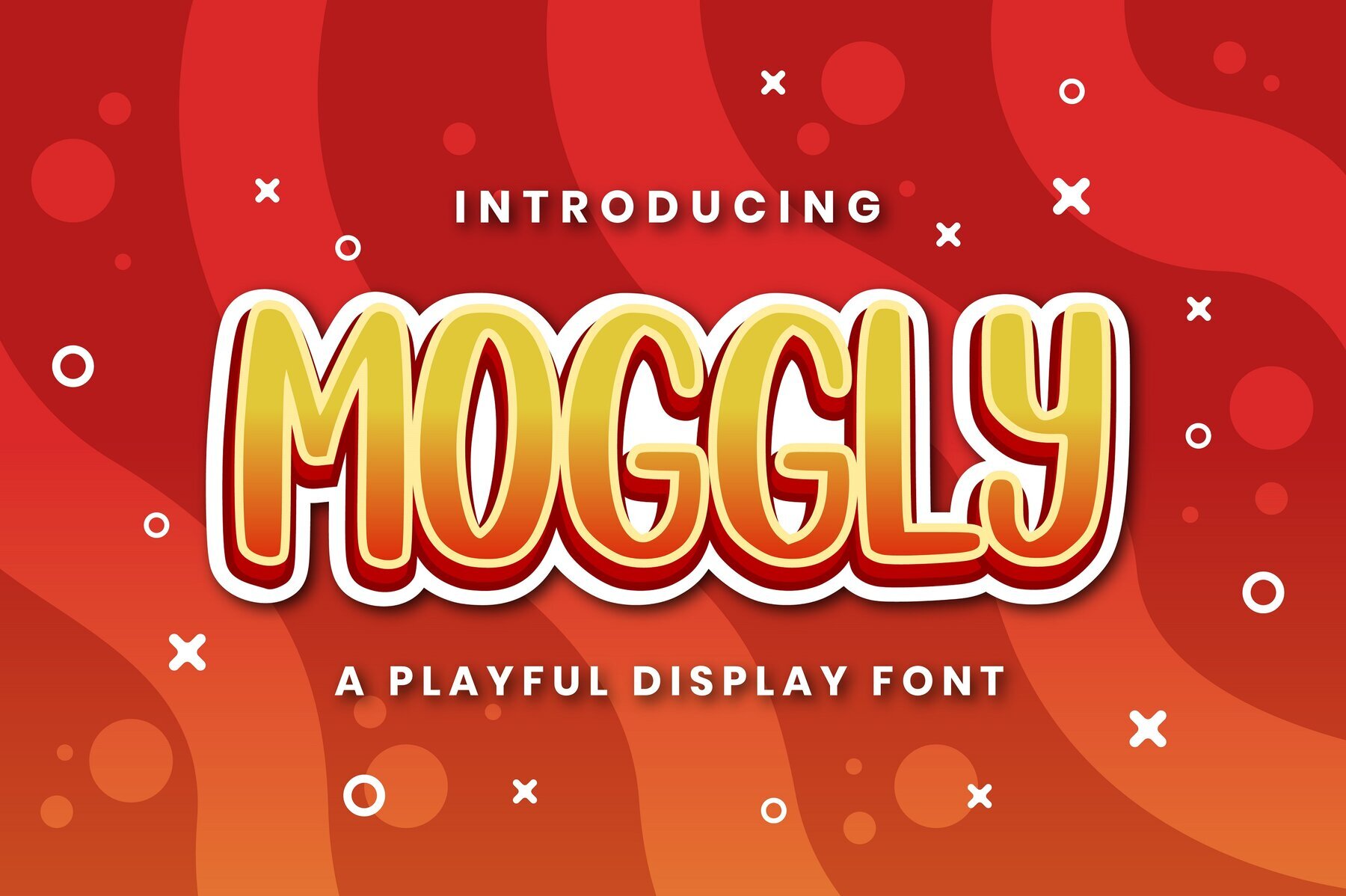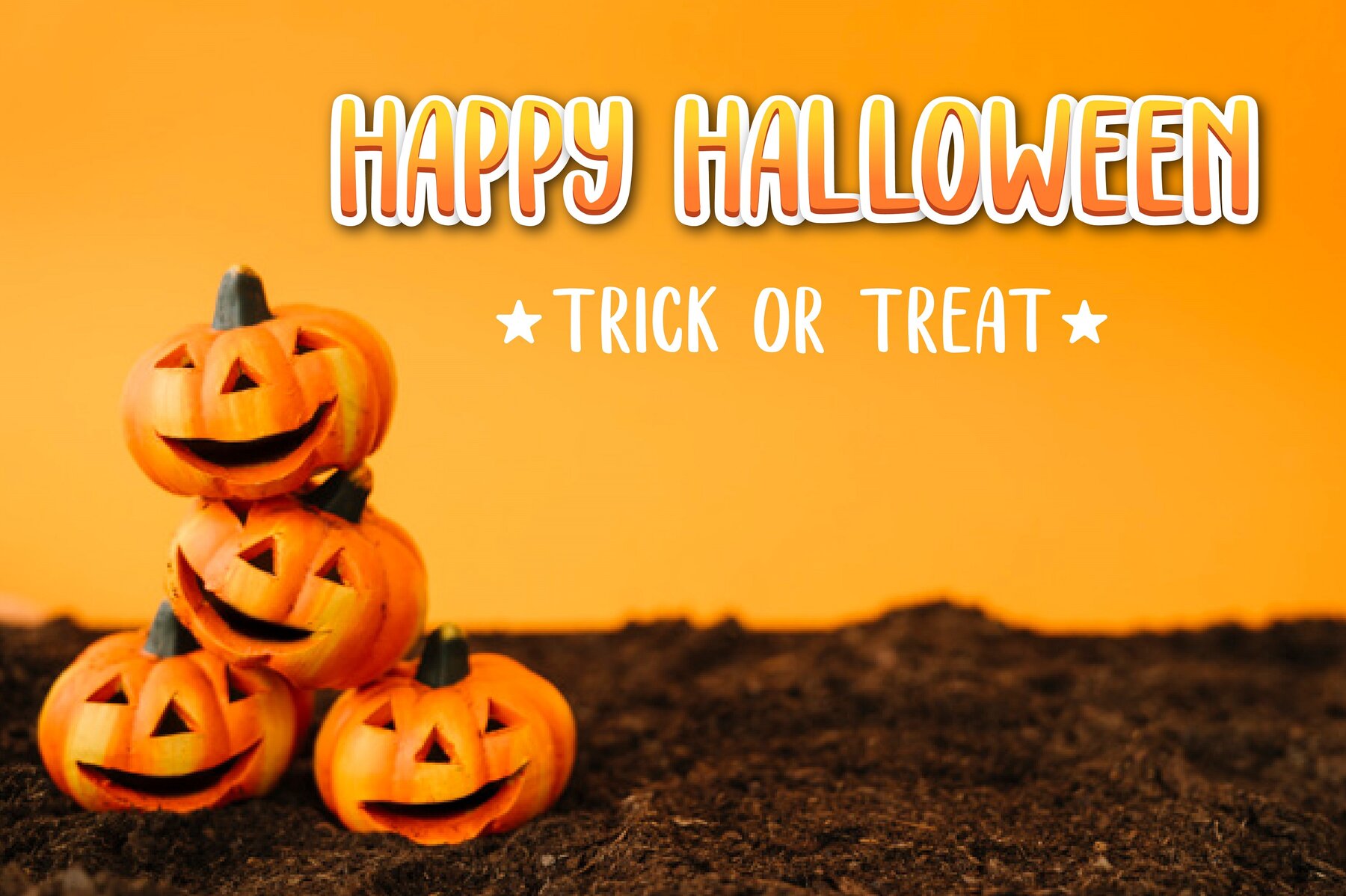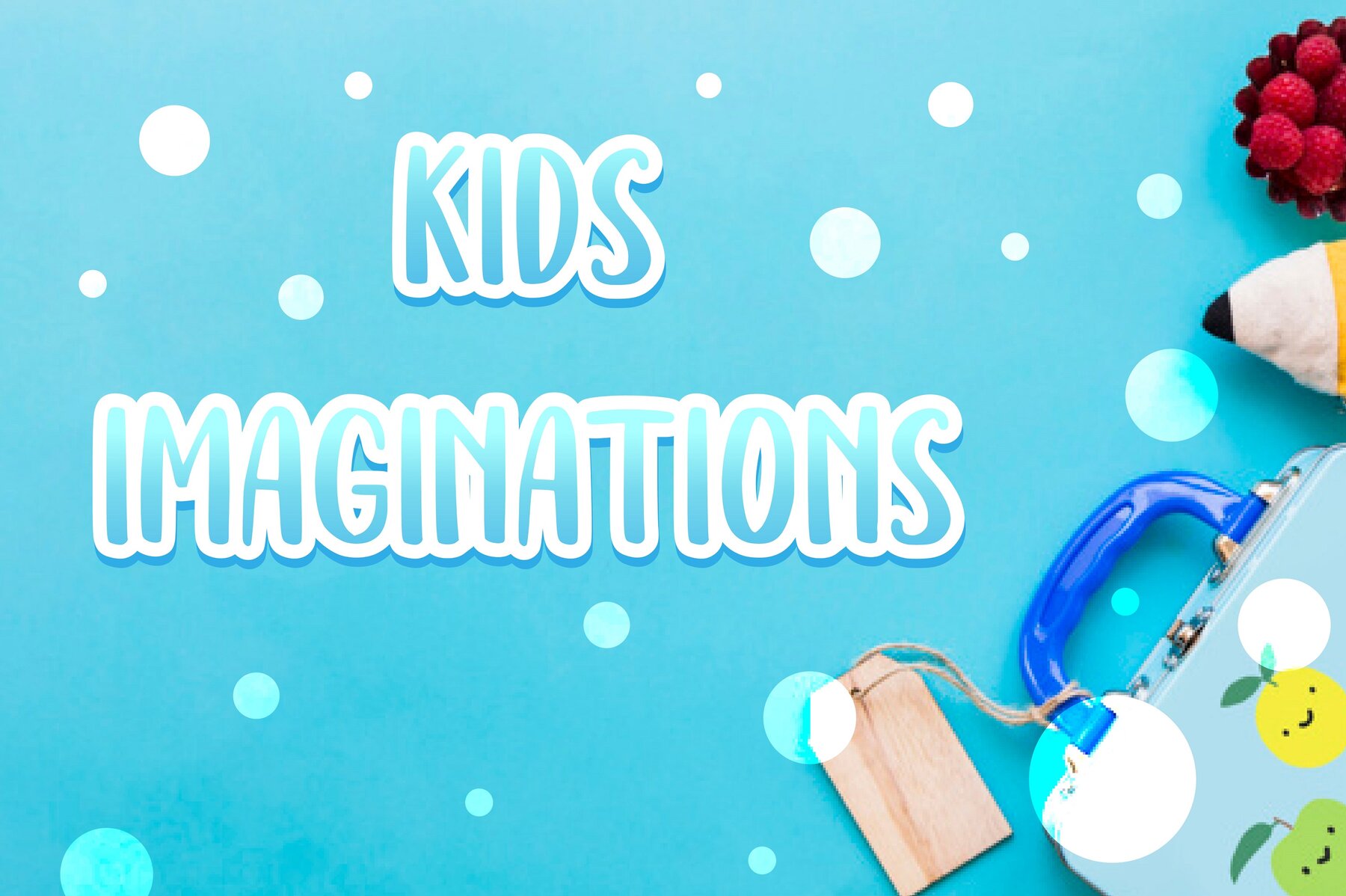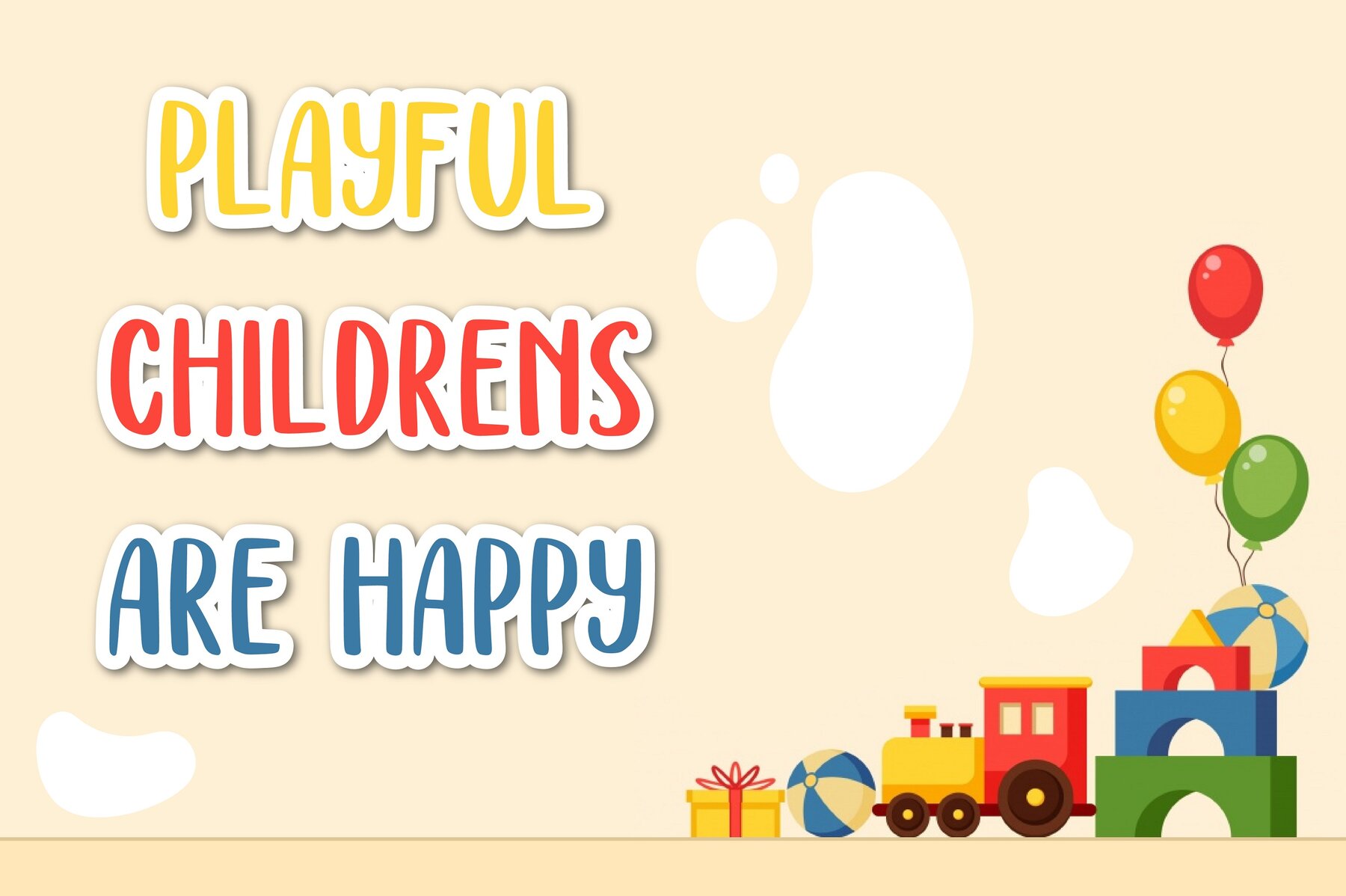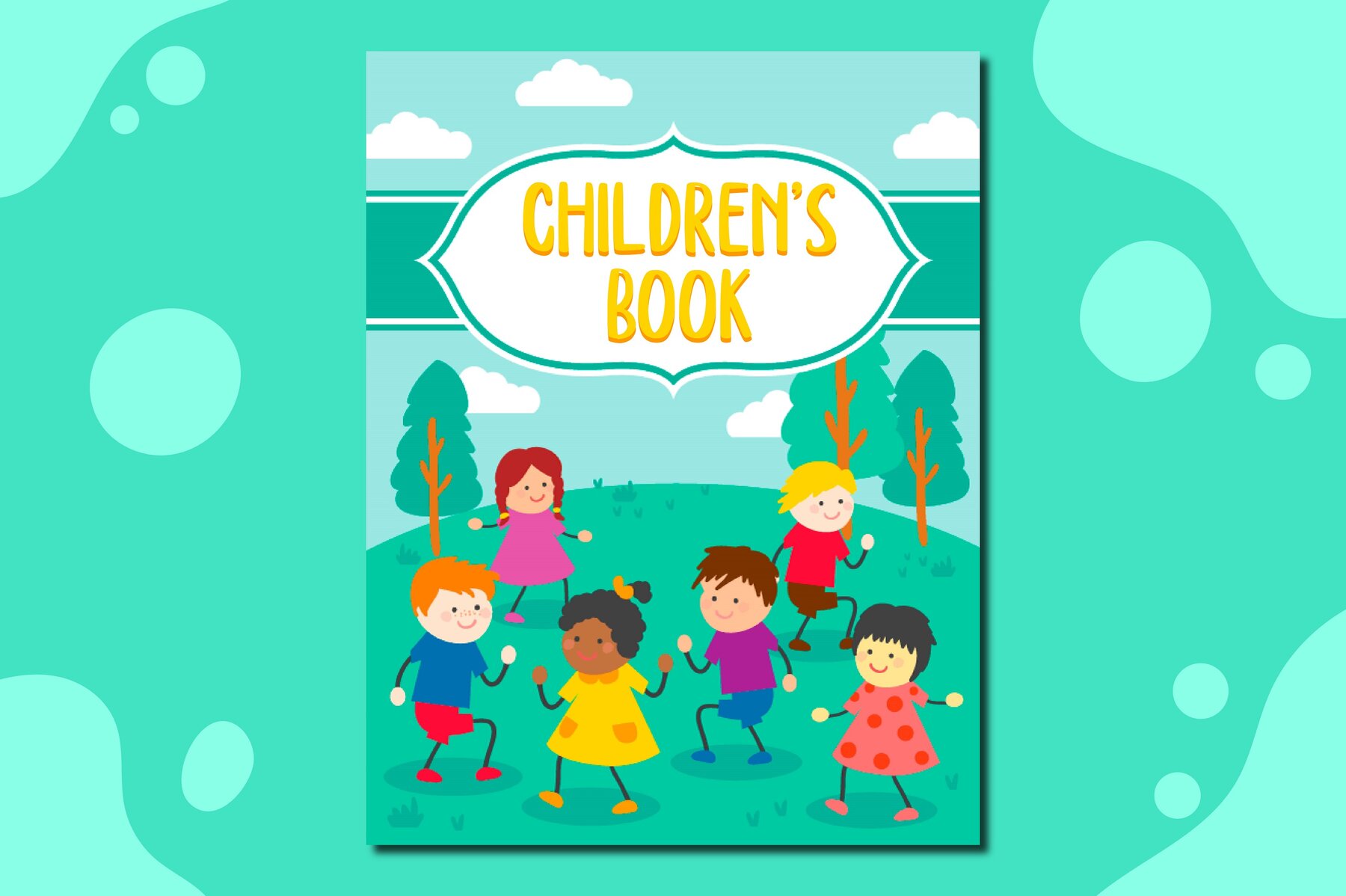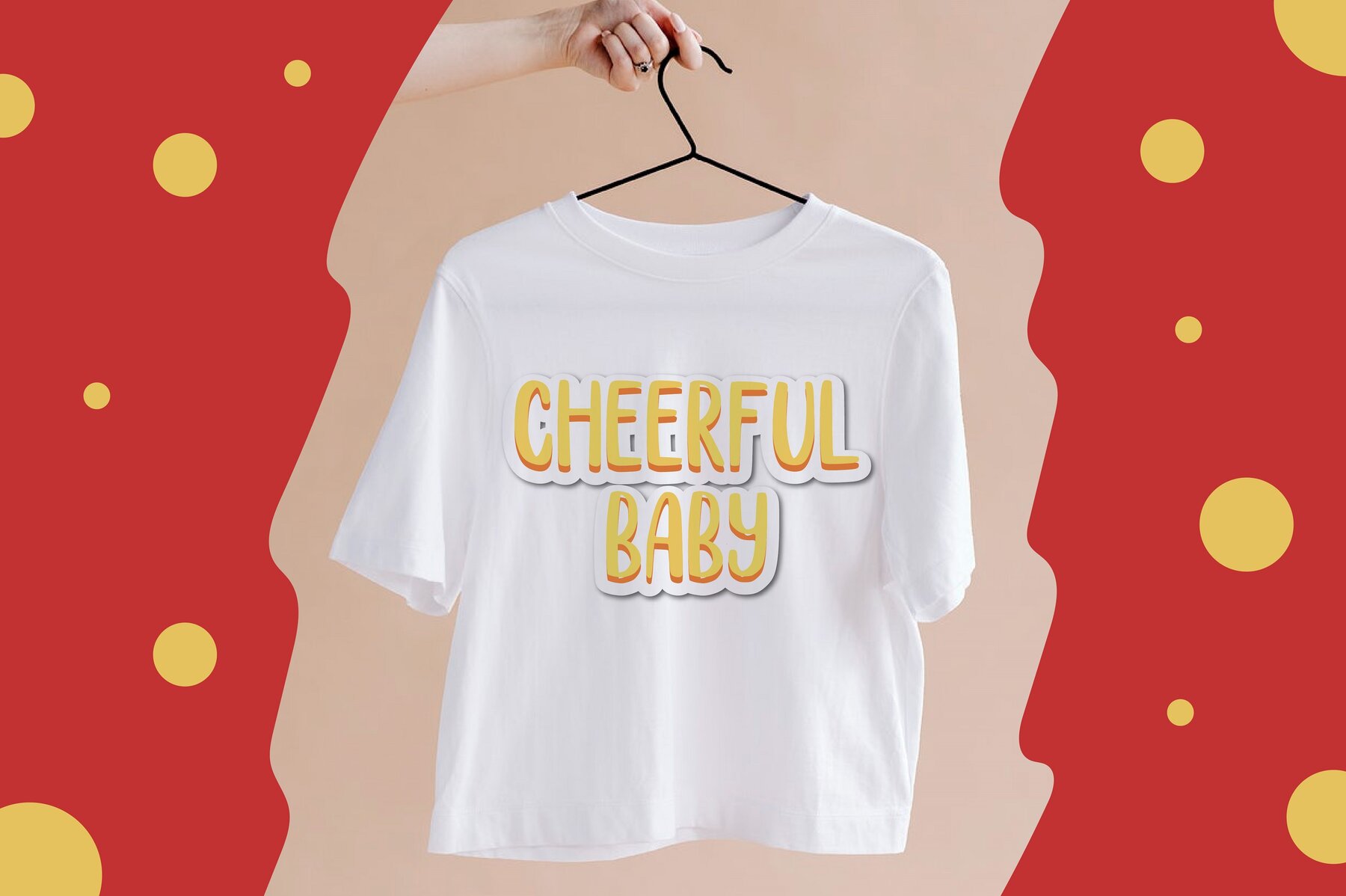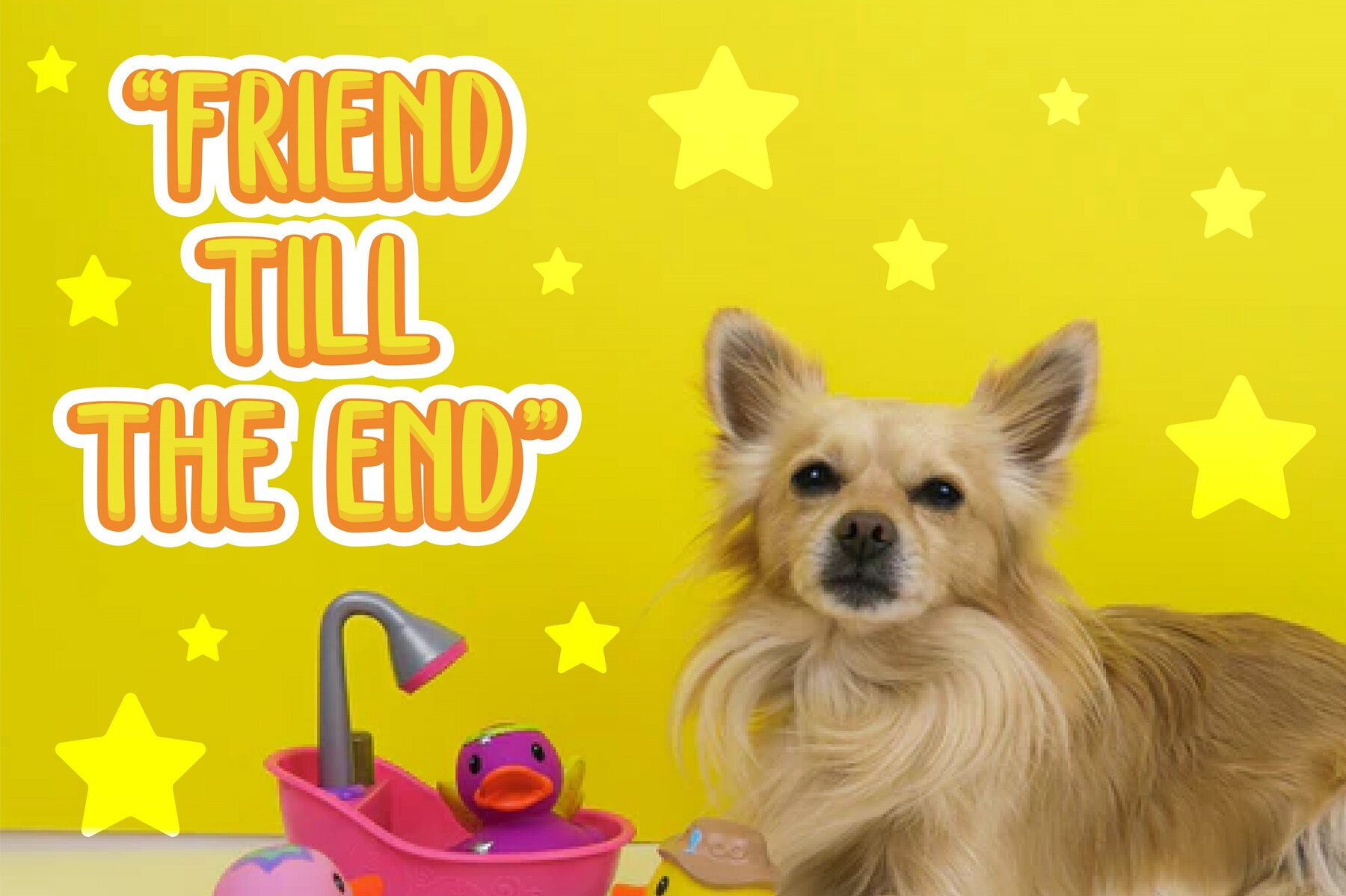
Moggly
Moggly captures the essence of playful creativity in its design, making it the perfect choice for child-focused and educational projects. This unique font adds a touch of whimsy to any creative endeavor, ensuring that your work truly stands out.Moggly: A Whimsical Display Font